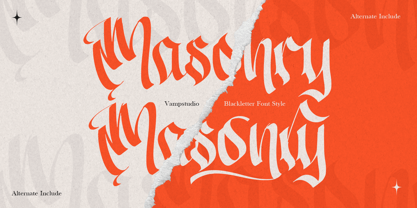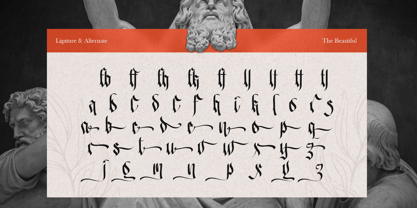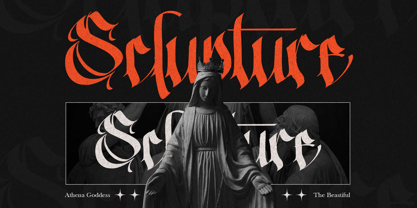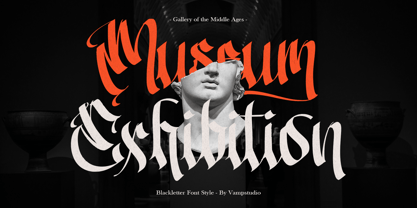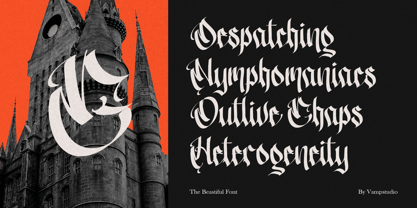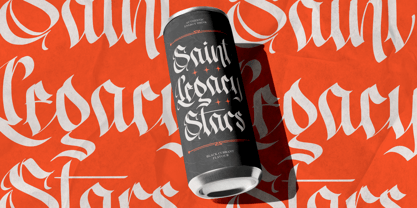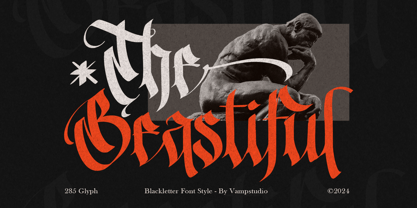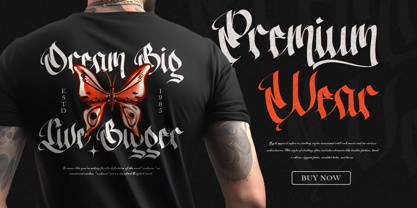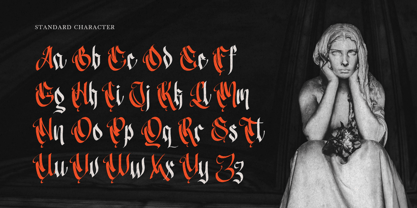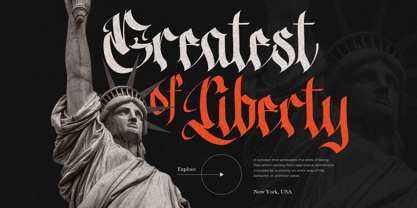
The Beastiful
by Vampstudio
The The Beastiful Font Family was designed by Irfan syah and published by Vampstudio. The Beastiful contains 1 styles. More about this family
The Beastiful is a striking Blackletter font that ignites designs with its fierce, flame-like strokes. This intense typeface evokes a sense of untamed energy and raw strength, featuring intricate flourishes that dance like flickering embers. Ideal for logos, branding, and projects that require a unique, edgy aesthetic with a hint of controlled chaos, The Beastiful Blackletter is perfect for branding initiatives, wedding designs, social media posts, advertisements, product packaging, labels, photography, watermarks, invitations, stationery, and any project that seeks a bold blackletter style.
Designers: Irfan syah
Foundry: Vampstudio